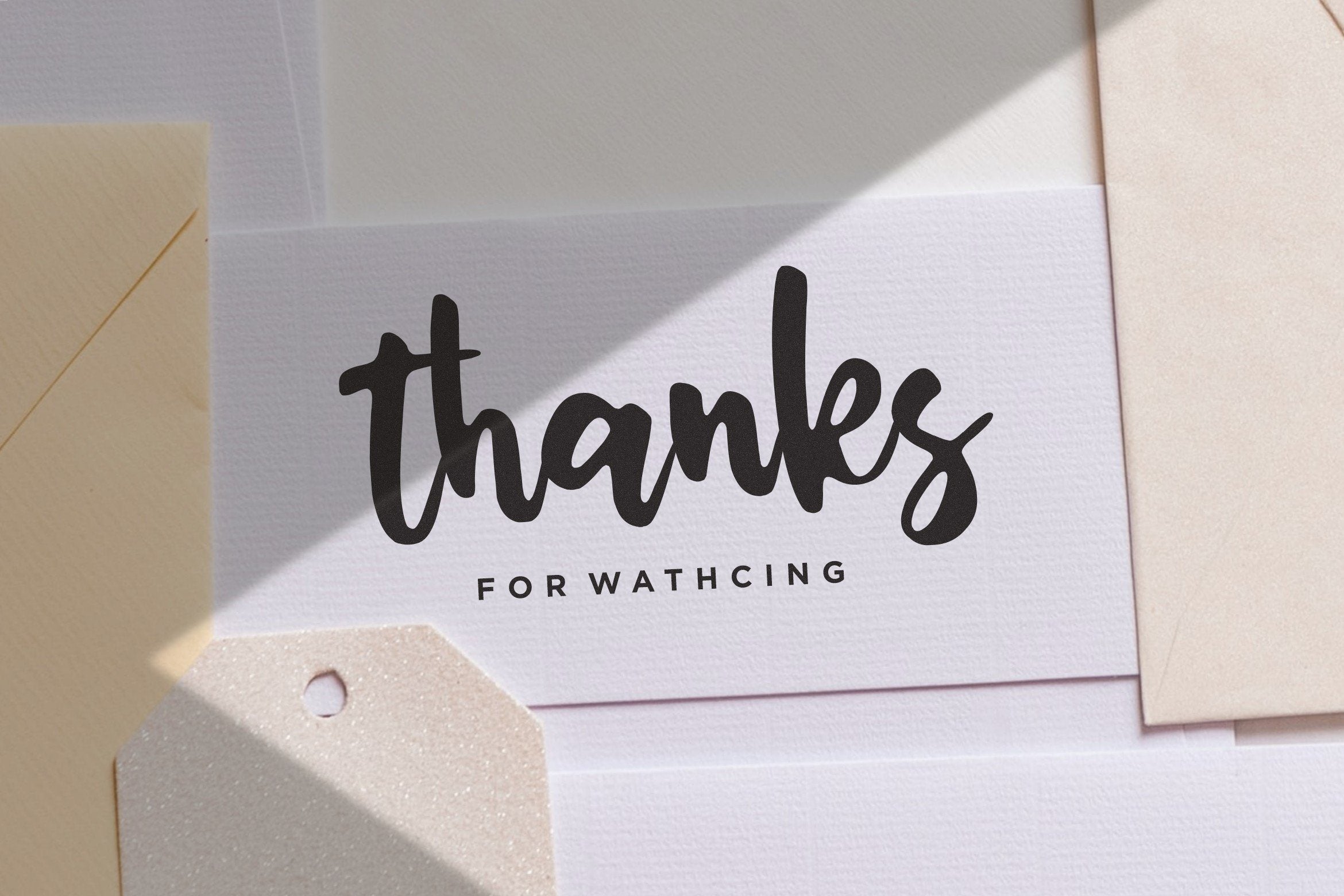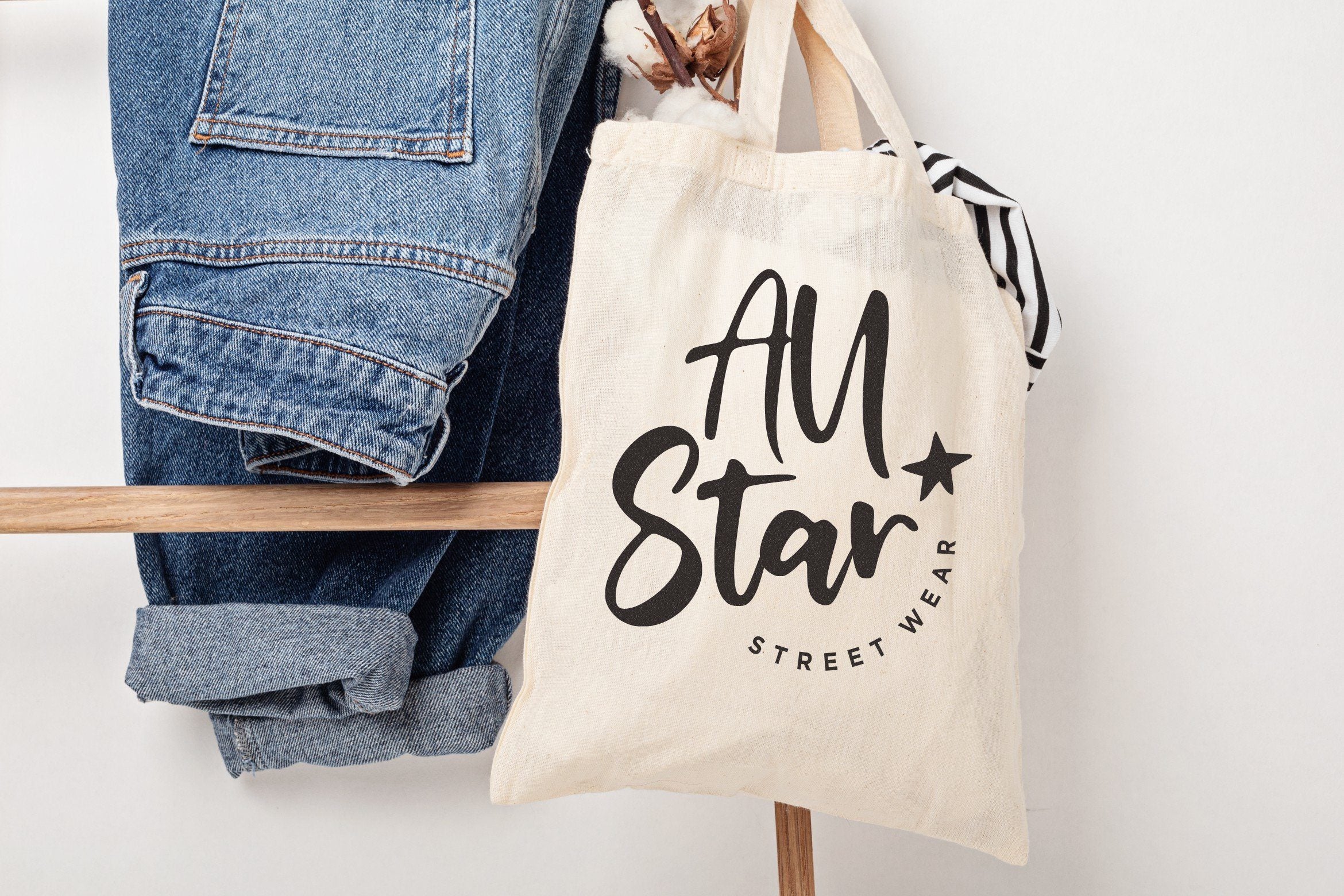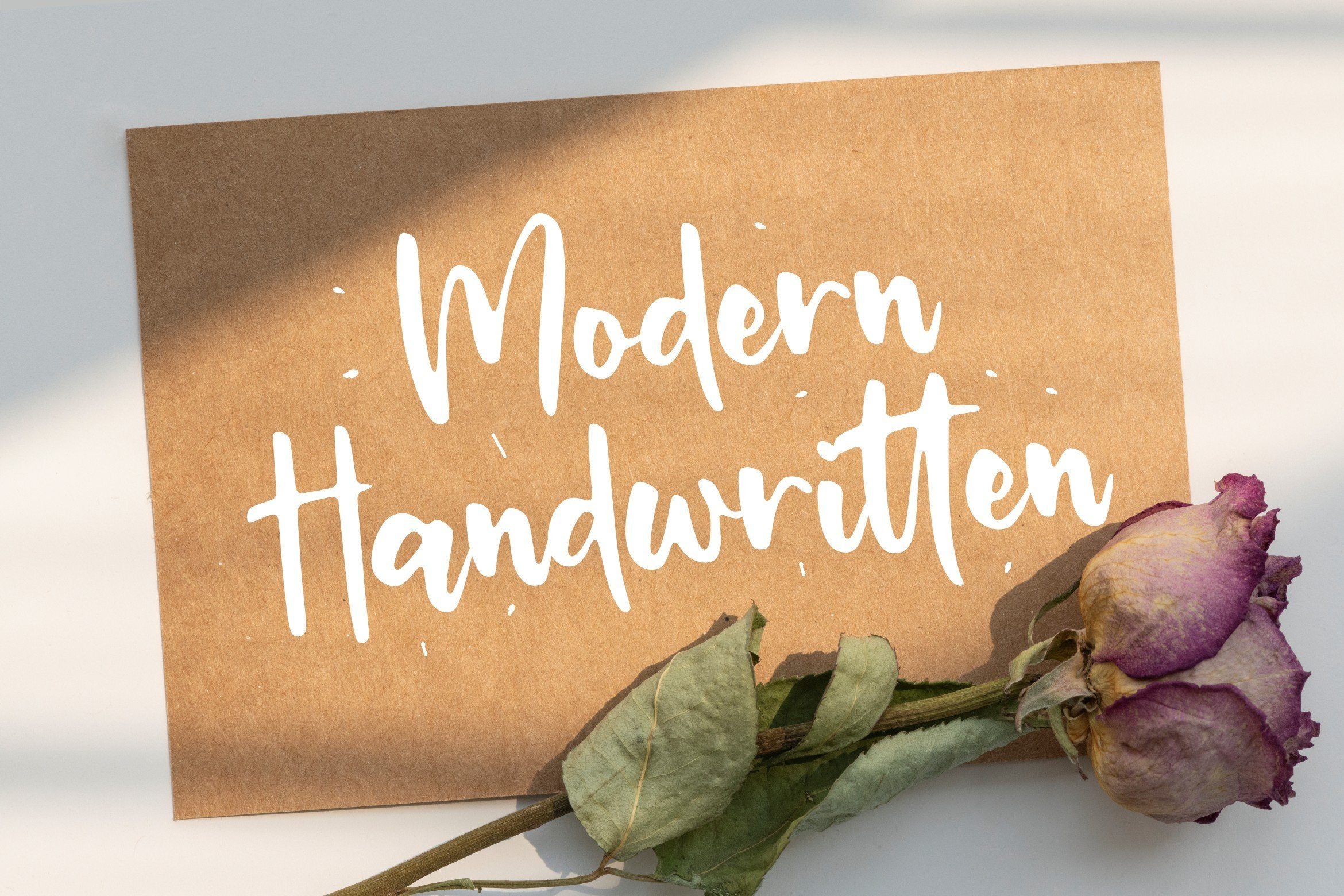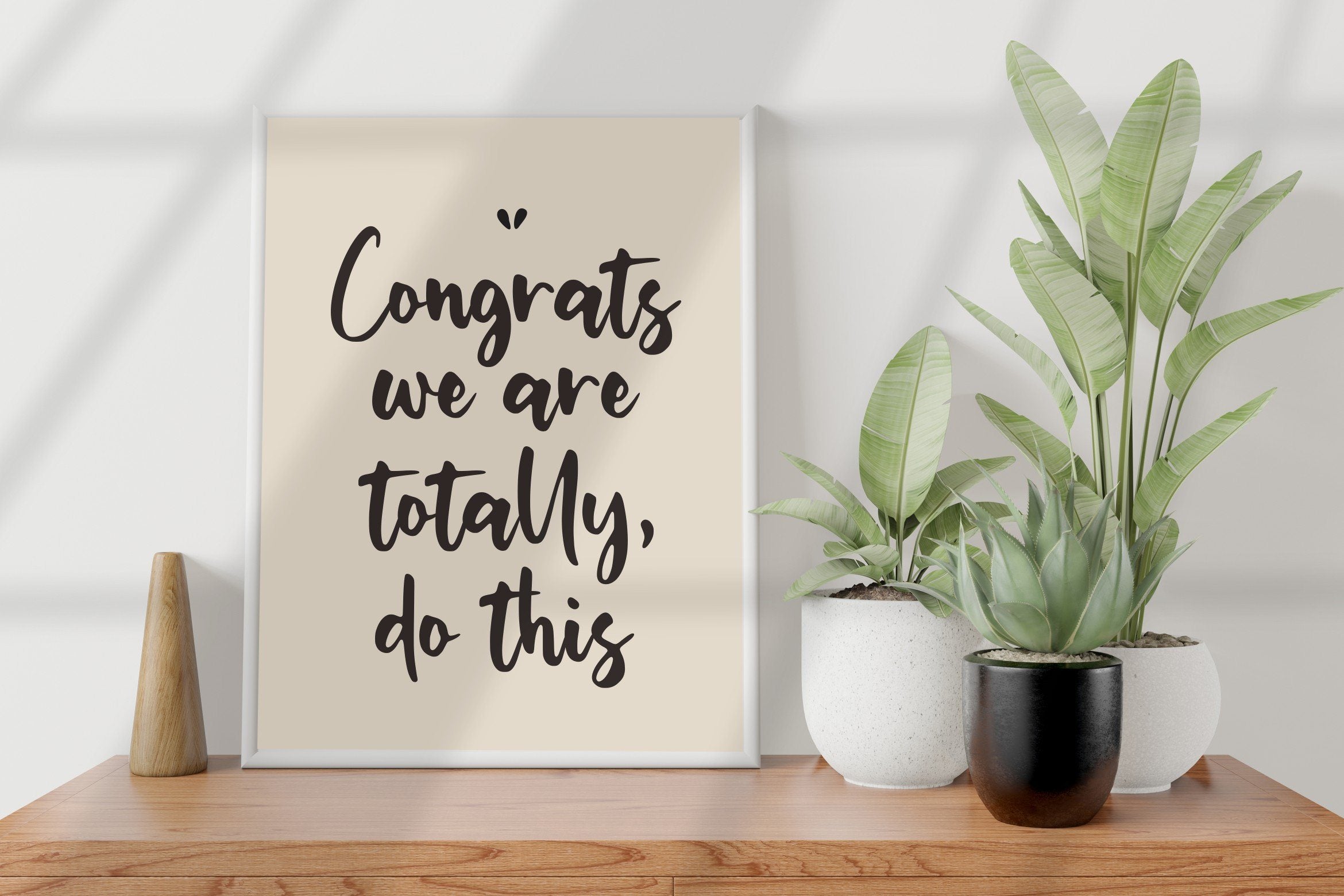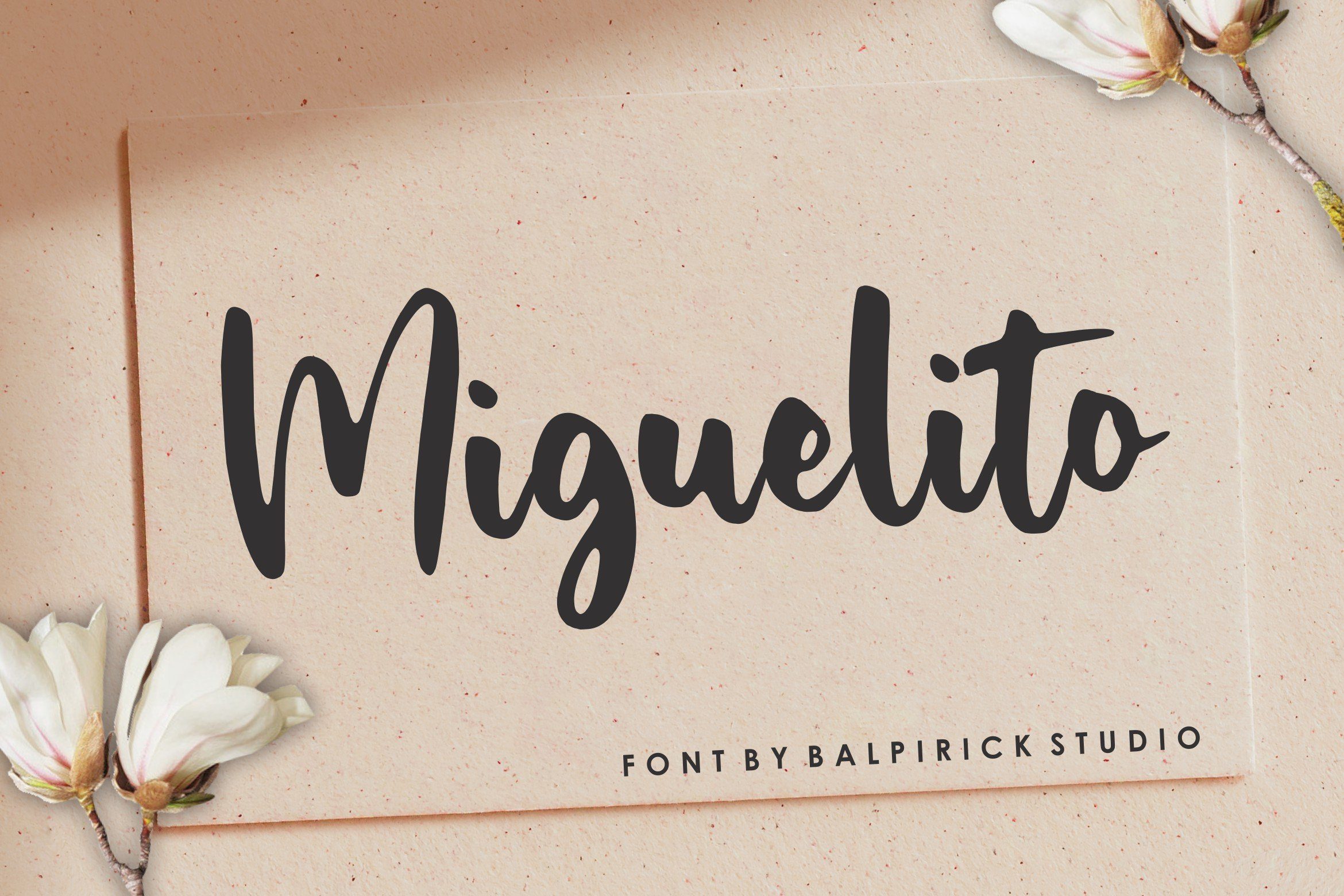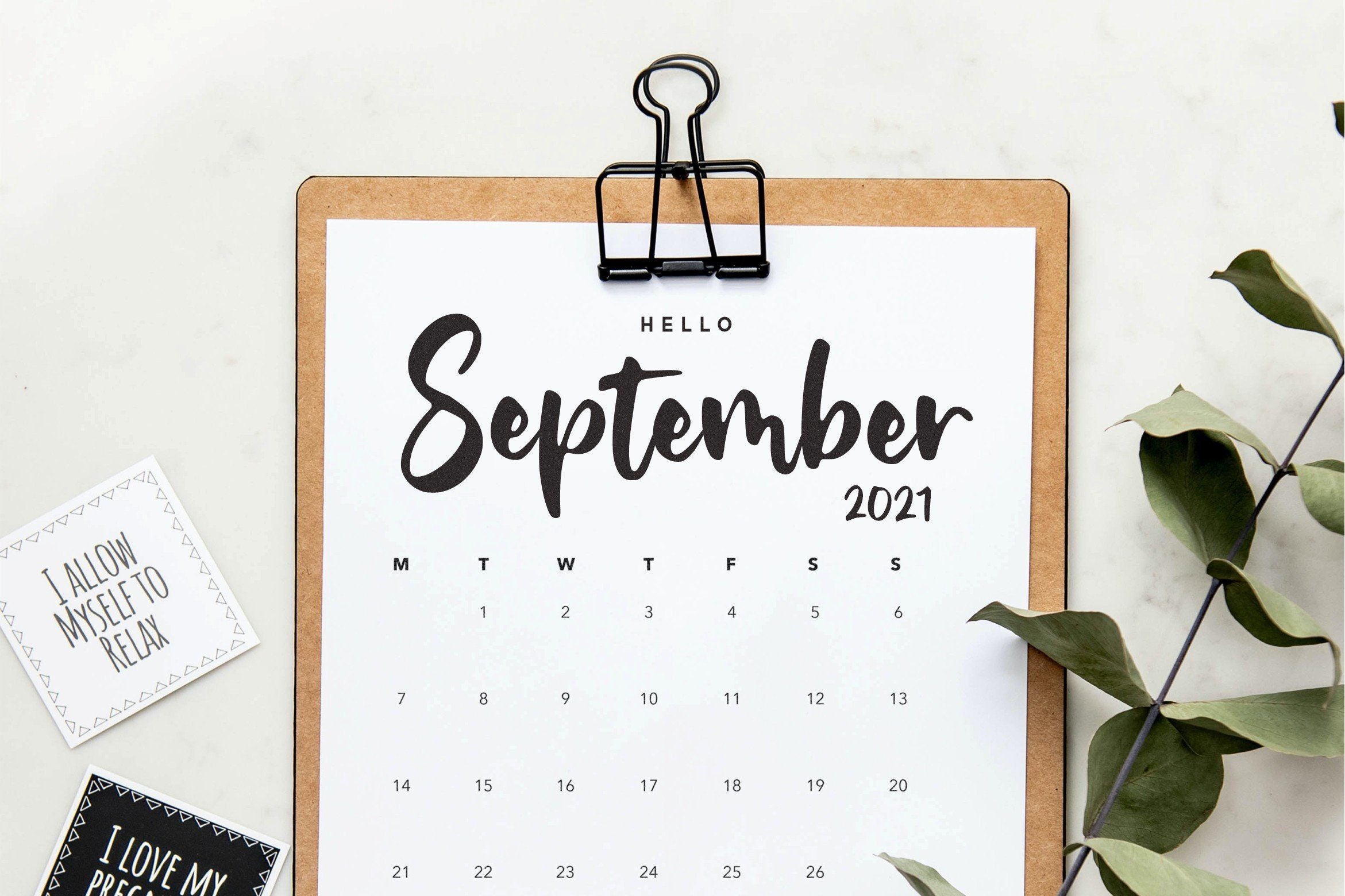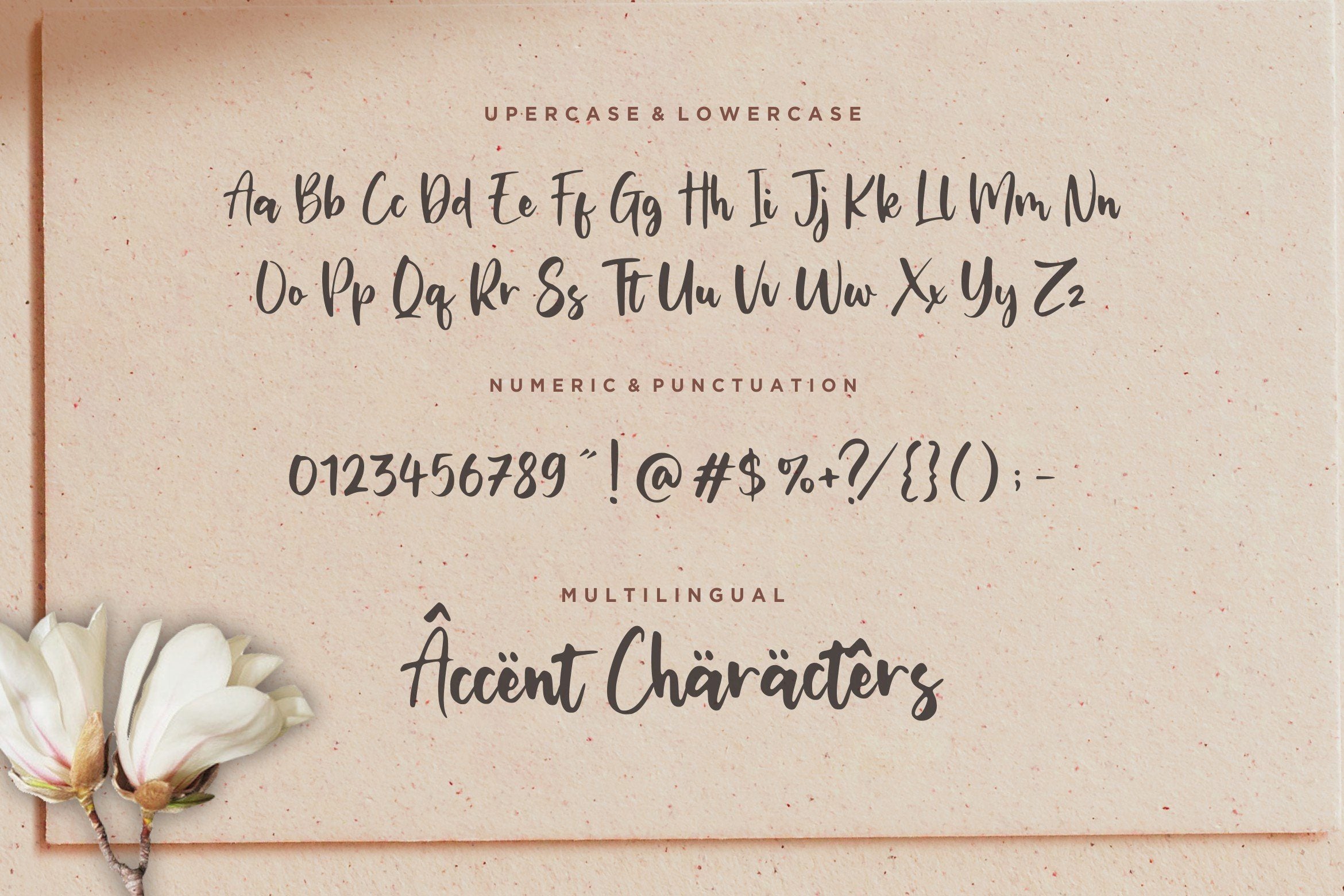
Miguelito Modern Handwritten Font
About Miguelito Modern Handwritten Font
Introducing by Balpirick Studio. Proudly Present, Miguelito Font. Miguelito is a Modern Handwritten Font. Miguelito is an elegant script font with a contemporary atmosphere and impeccable form. Not too thin and not too thick, balanced and varied, this font was designed to enhance the beauty of your projects. This font includes TTF, OTF and WOFF, Miguelito also multilingual support. Enjoy the font, feel free to comment or feedback, send me PM or email. Thank you!